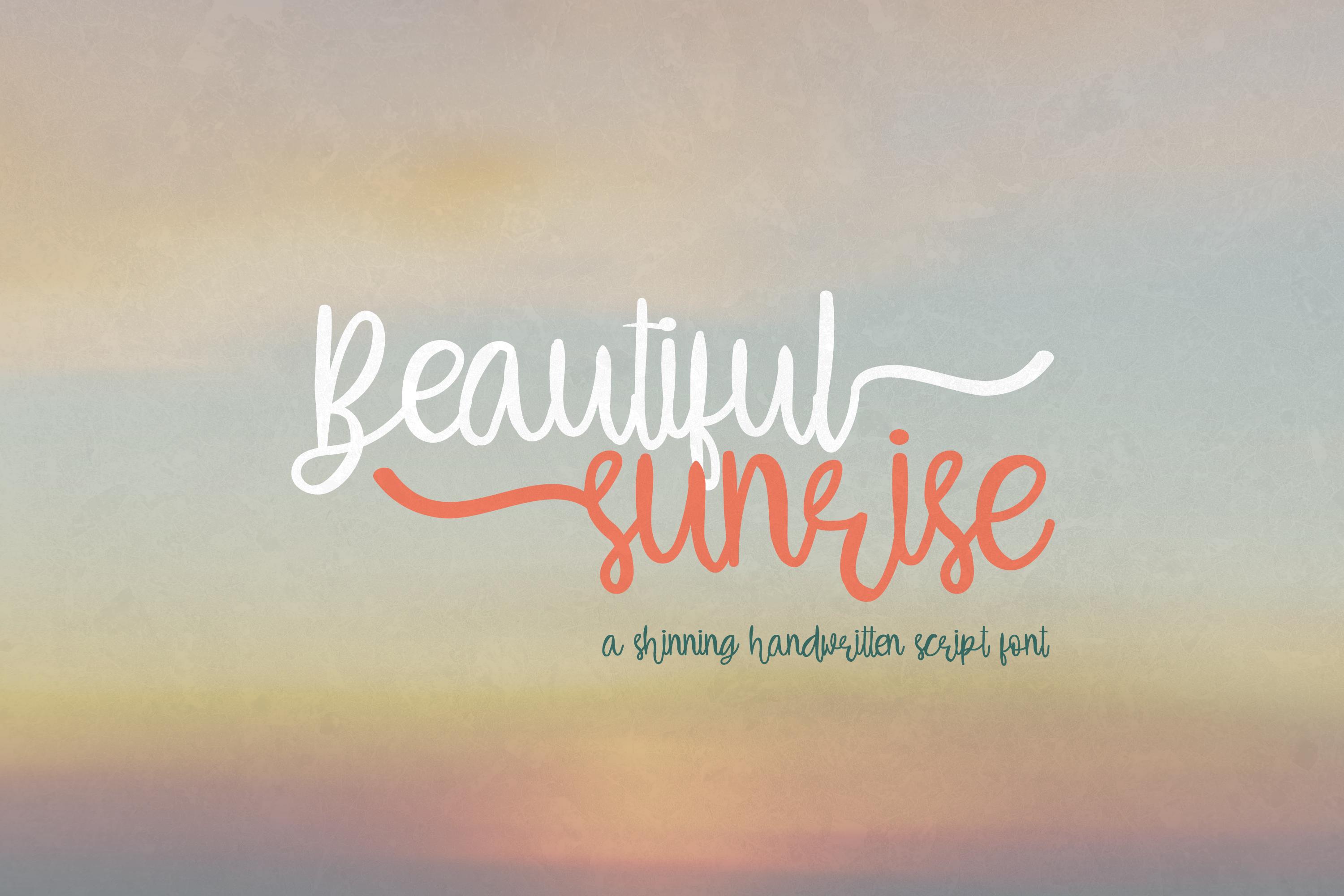
Beautiful Sunrise Font Description
Beautiful Sunrise is a charming and bouncy handwritten script font. It is PUA encoded which means you can access all of the glyphs and swashes with ease! Get inspired by its incredibly delicate feel, and use it to turn any design project into a standout!